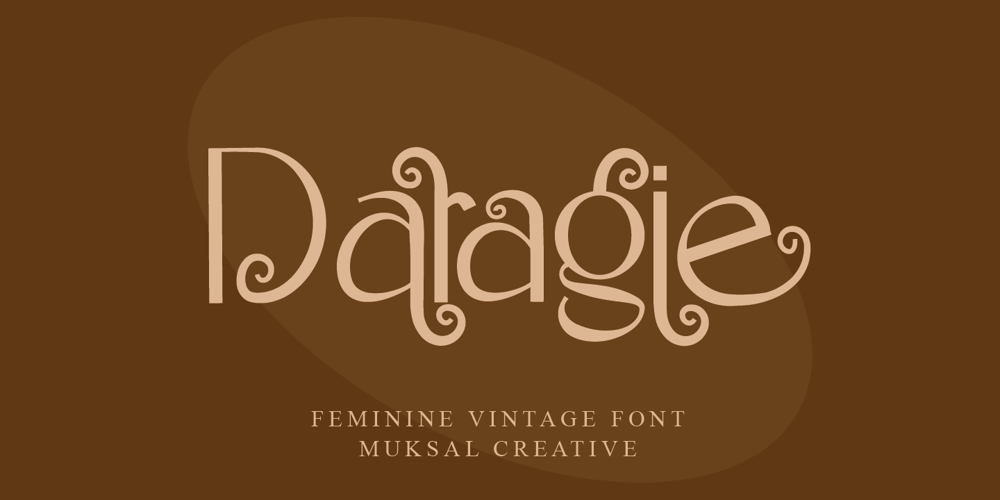
Daragie Font Family was designed by Muksalmina and published by Muksal Creatives. Daragie contains 1 styles and family package options. Daragie is a feminine vintage typeface with beautiful alternete, tons of special , ornament and multilingual support. It’s a very versatile font that works great in large and small sizes. Perfect for editorial projects, Logo design, Clothing Branding, product packaging, magazine headers, or simply as a stylish text overlay to any background image.